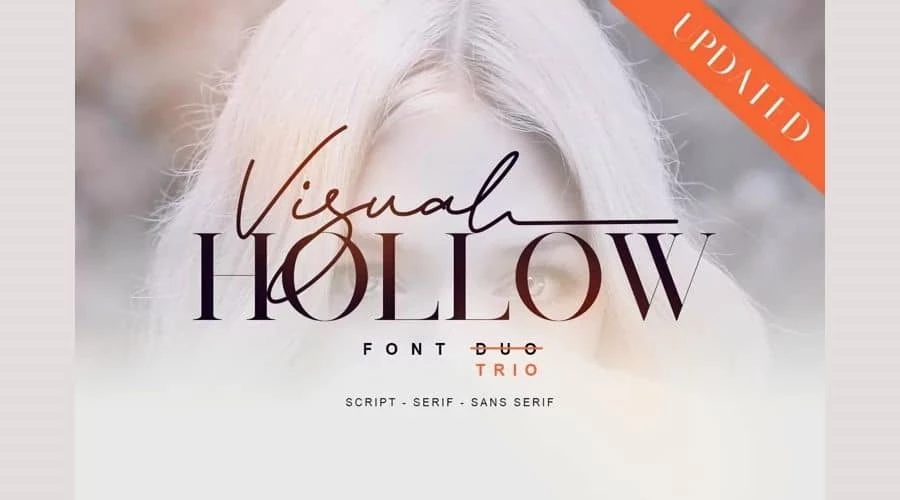
Visual Hollow font is a stunning duo typeface (serif/script). This font is extremely versatile and can be used with a variety of designs. This font will bring life to your creative ideas. Visual Hollow features a beautiful didot-style serif font with a free-flowing expressive script companion. This font is perfect for logos, branding, product designs, social media posts, and advertisements. It supports multilingual support and can be used in uppercase, and lowercase as well as number, punctuation, symbols, numbers, ligatures, and symbol combinations.